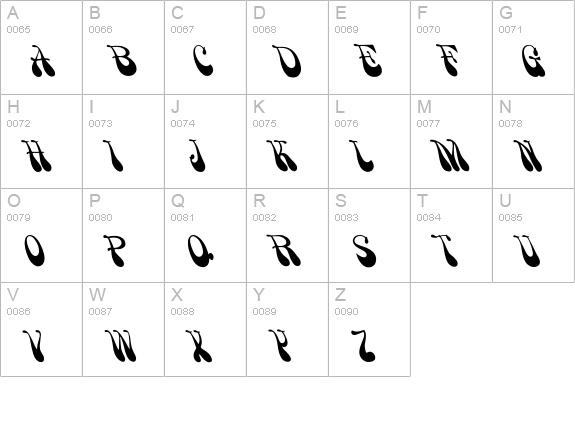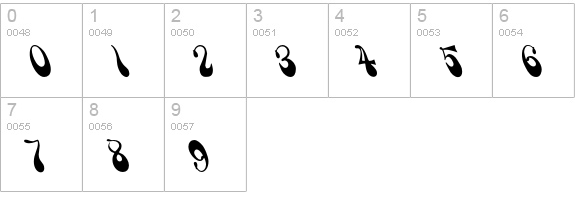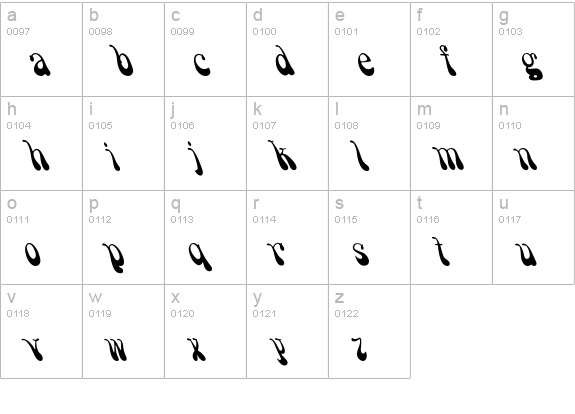
PsychedelicSmoke font is a mesmerizing and vibrant typeface that is sure to make a statement in any design project. With its swirling, ethereal smoke-like appearance, this font exudes a sense of creativity and uniqueness. The playful yet sophisticated style of PsychedelicSmoke font is perfect for adding a touch of whimsy to posters, album covers, branding materials, and more. The best part? PsychedelicSmoke font is completely free to use! You can easily download this eye-catching font at FontsMarket.com and start incorporating its psychedelic charm into your designs today. Whether you're looking to add a touch of retro flair or create a bold and modern look, PsychedelicSmoke font has got you covered. Don't miss out on this free and fantastic font - download it now and let your creativity soar!